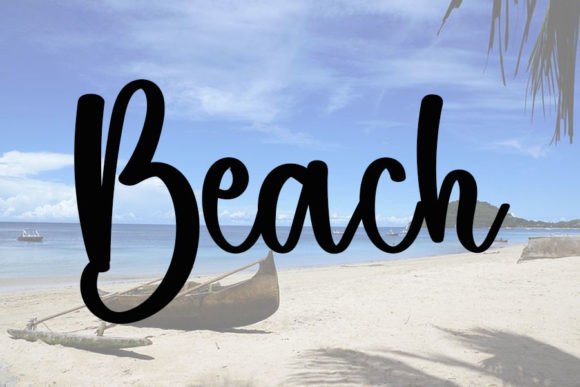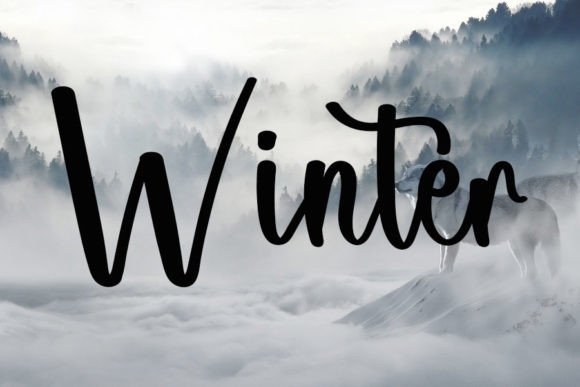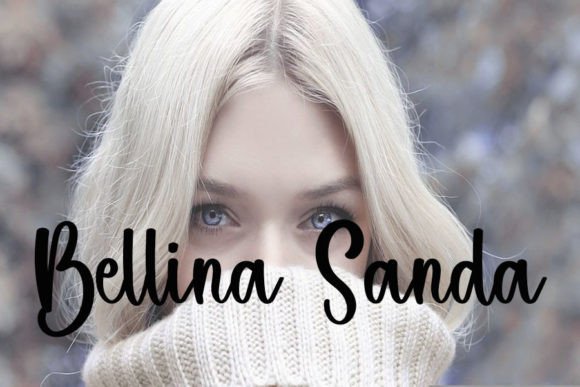
Introduction to Madagascar Font
Have you ever been stuck in a creative rut, scrolling through design inspiration boards, searching for that perfect font to bring your project to life? For designers and crafty DIY enthusiasts alike, finding the right font can be a game-changer. It’s the missing piece that takes your design from good to great. And, trust us, you’re in luck because today we’re diving into the world of the enchanting Madagascar Font.
This magical handwritten font is more than just a pretty face – it’s a design resource that will elevate your creative project to new heights. With its clean and quirky aesthetic, the Madagascar Font is the perfect fit for logos, branding, social media, and any other project that needs a touch of elegance.
Key Features of Madagascar Font
- Unique, hand-drawn design for a creative project
- High-quality font with a transparent background for easy editing
- Includes a comprehensive character set with international support
- Perfect design resource for graphic designers, illustrators, and digital artists
Honest Review: Madagascar Font
I recently had the chance to work with the Madagascar Font and I must say it’s a great addition to any design project. This font is perfect for creative projects where you want to add a touch of fun and playfulness.
- ✨ High-quality design: The Madagascar Font is well-designed and looks great on a variety of backgrounds.
- ✨ Transparent background: The font has a transparent background, making it easy to use on any background image or color.
- ⚠️ Limited font sizes: The font only comes in a few different sizes, which may not be ideal for designers who need a wide range of font sizes.
- ⚠️ Limited character set: The font only includes a limited character set, which may not be suitable for designers who need to use special characters or symbols.
Overall, I’m impressed with the Madagascar Font and would definitely recommend it to designers who are looking for a fun and playful font for their creative projects.
Use the Madagascar Font to create unique and eye-catching designs for your creative project. Experiment with different font sizes, colors, and combinations to achieve the desired effect. The transparent background of the Madagascar Font also makes it ideal for creating custom graphics and designs.
The Madagascar Font is perfect for designers, artists, and creatives who want to add a unique touch to their projects. Use it to create logos, graphics, presentations, reports, and documents that require a high level of creativity and professionalism.